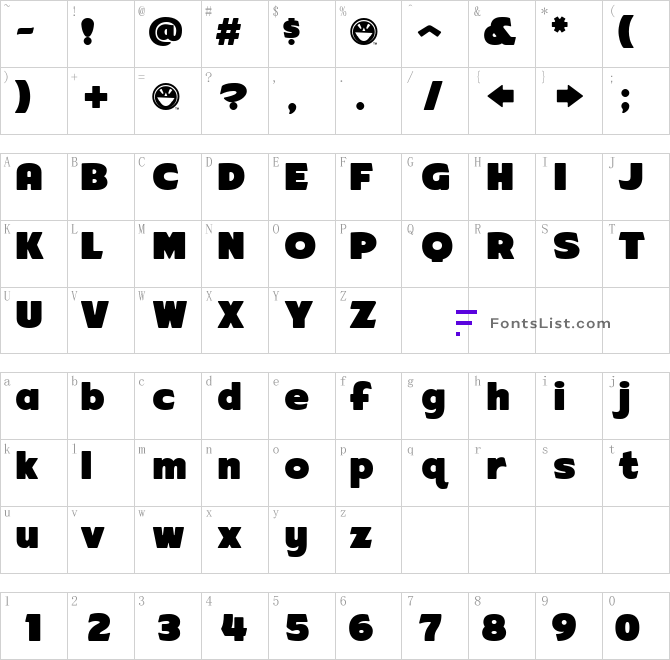
- Font Name:ARB-218 Neon Blunt MAR-50
ARB-218-Neon-Blunt-MAR-50-Normal-Italic.ttf is a very beautiful artistic font, ARB-218-Neon-Blunt-MAR-50-Normal-Italic.ttf is widely used in the design and printing of various books and pictures,ARB-218-Neon-Blunt-MAR-50-Normal-Italic.ttf has a strong visual impact,ARB-218-Neon-Blunt-MAR-50-Normal-Italic.ttf is a commonly used font in newspapers, magazines and books, and is used in posters, e-commerce Poster design, store design, logo design, font design and other fields.ARB-218-Neon-Blunt-MAR-50-Normal-Italic.